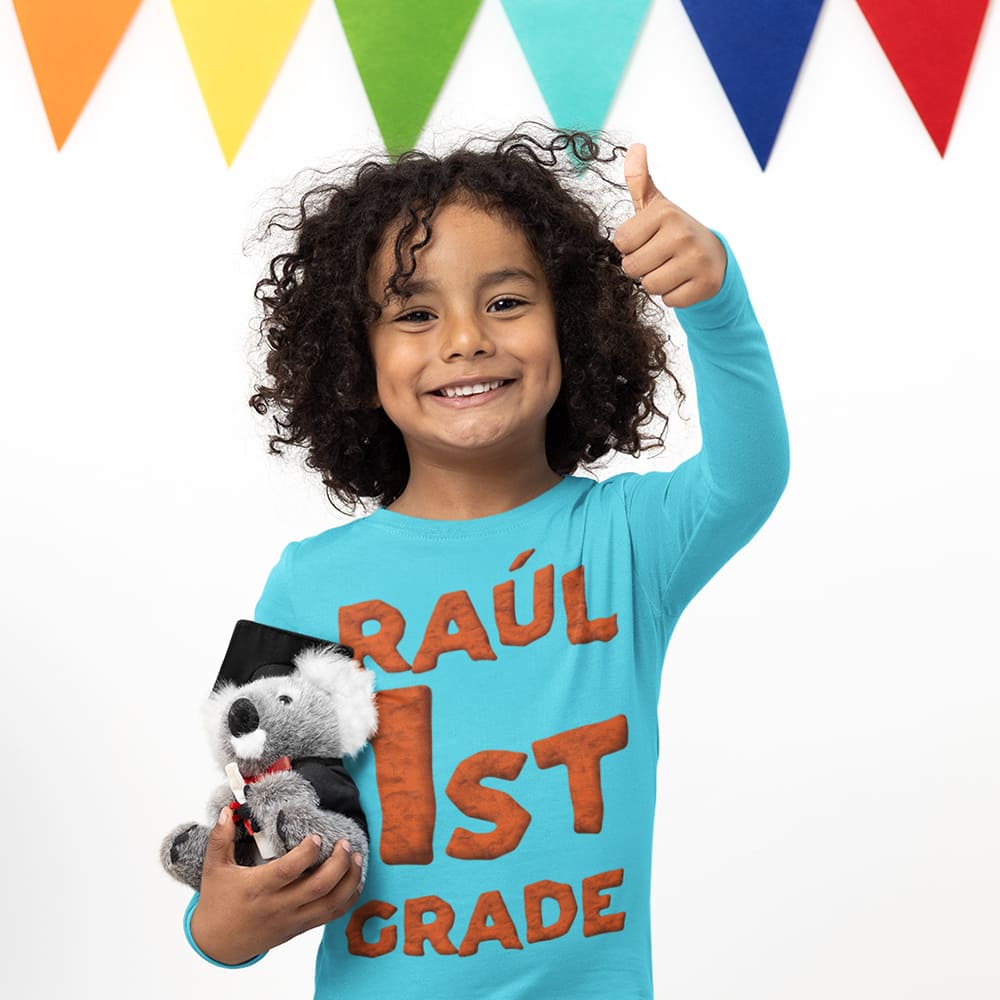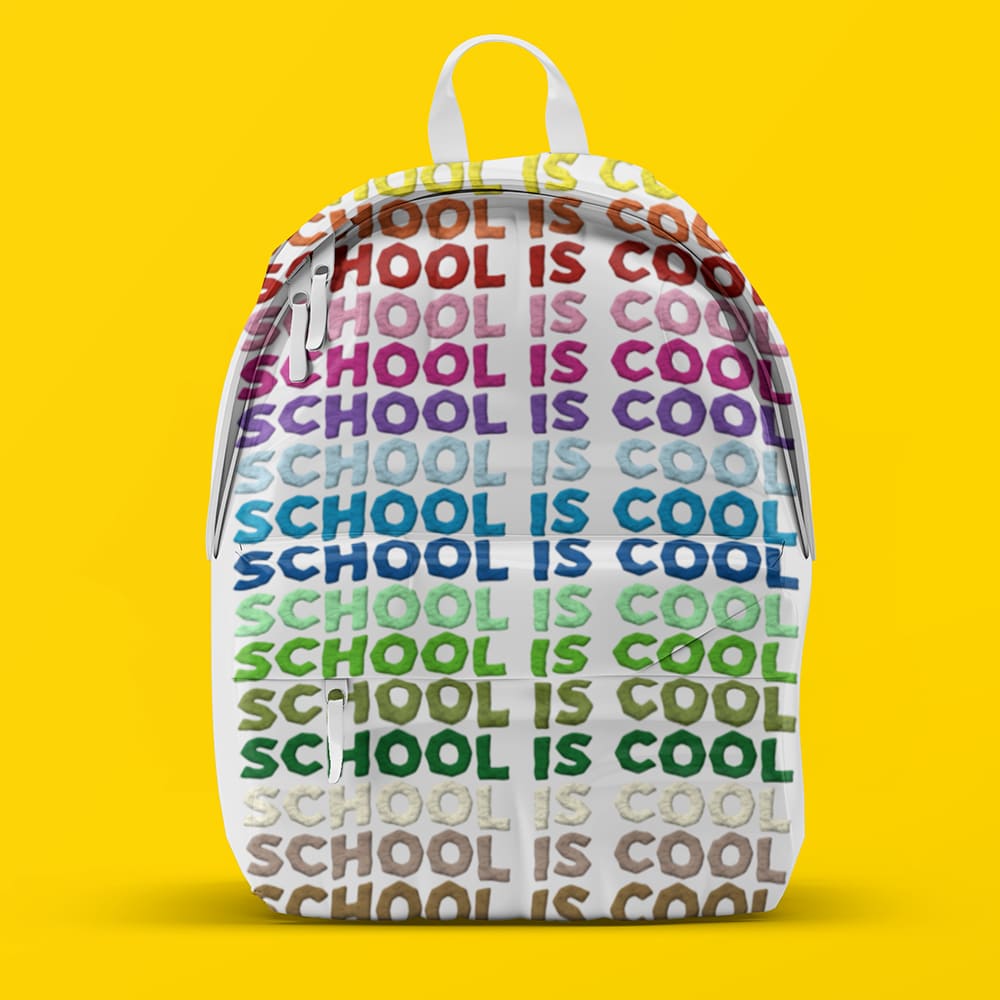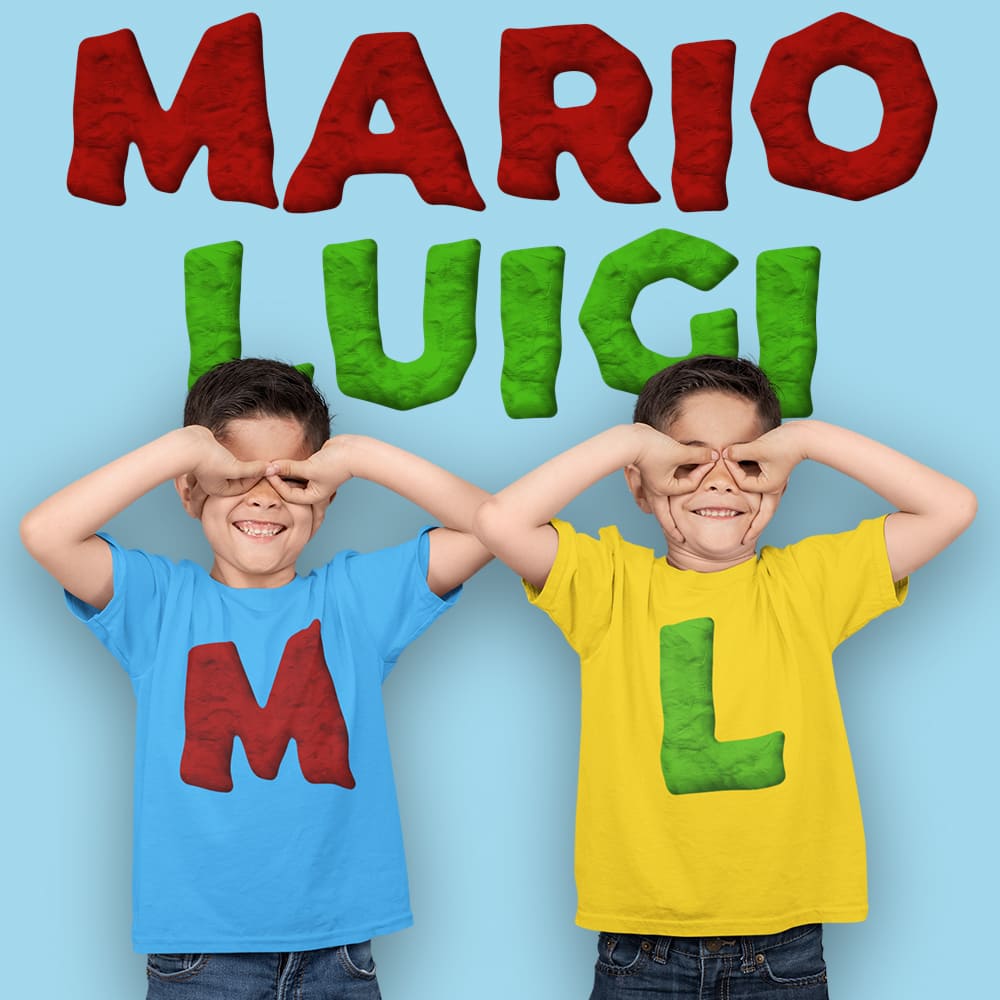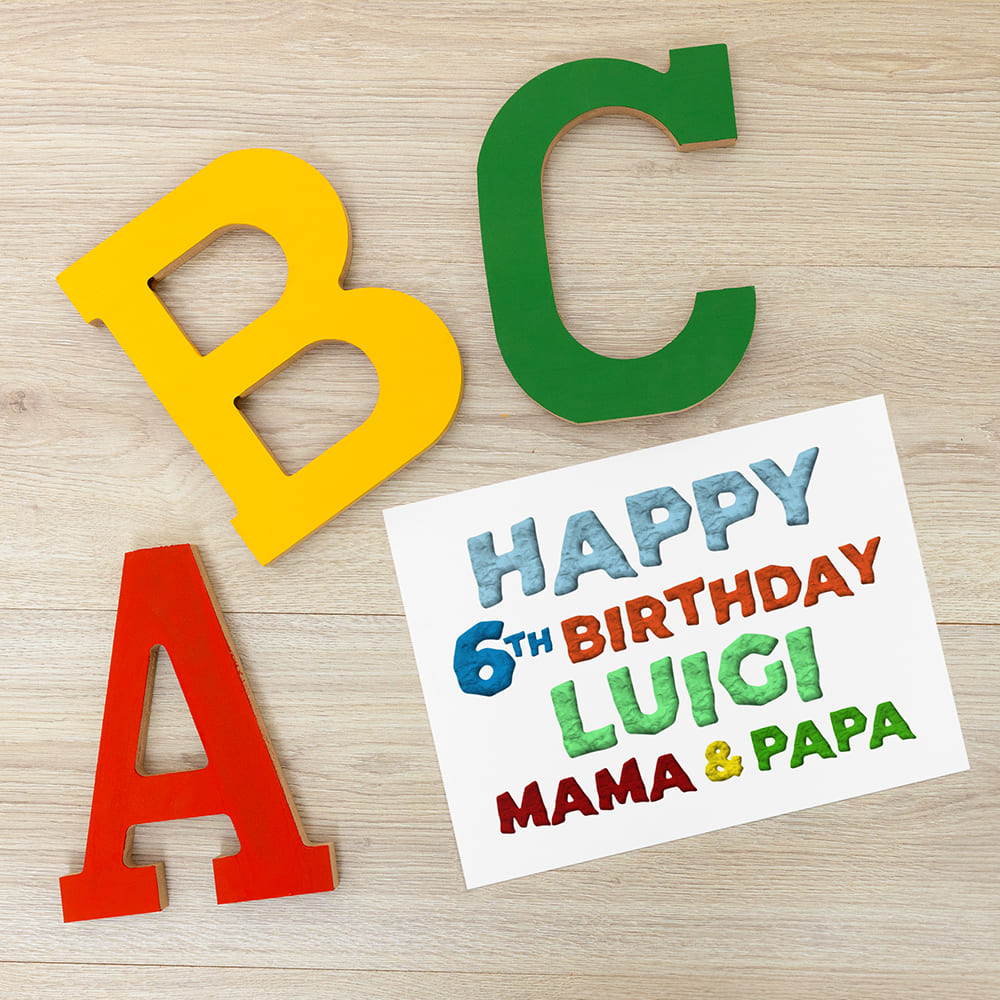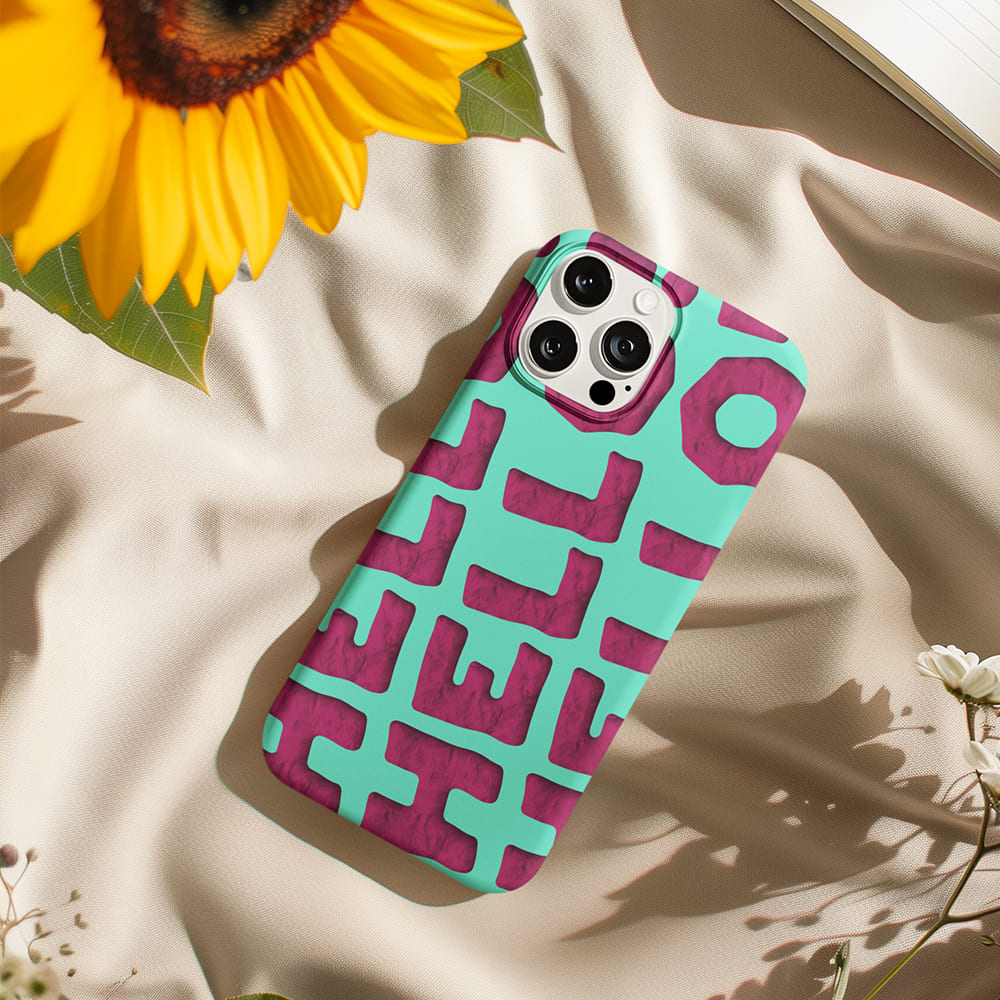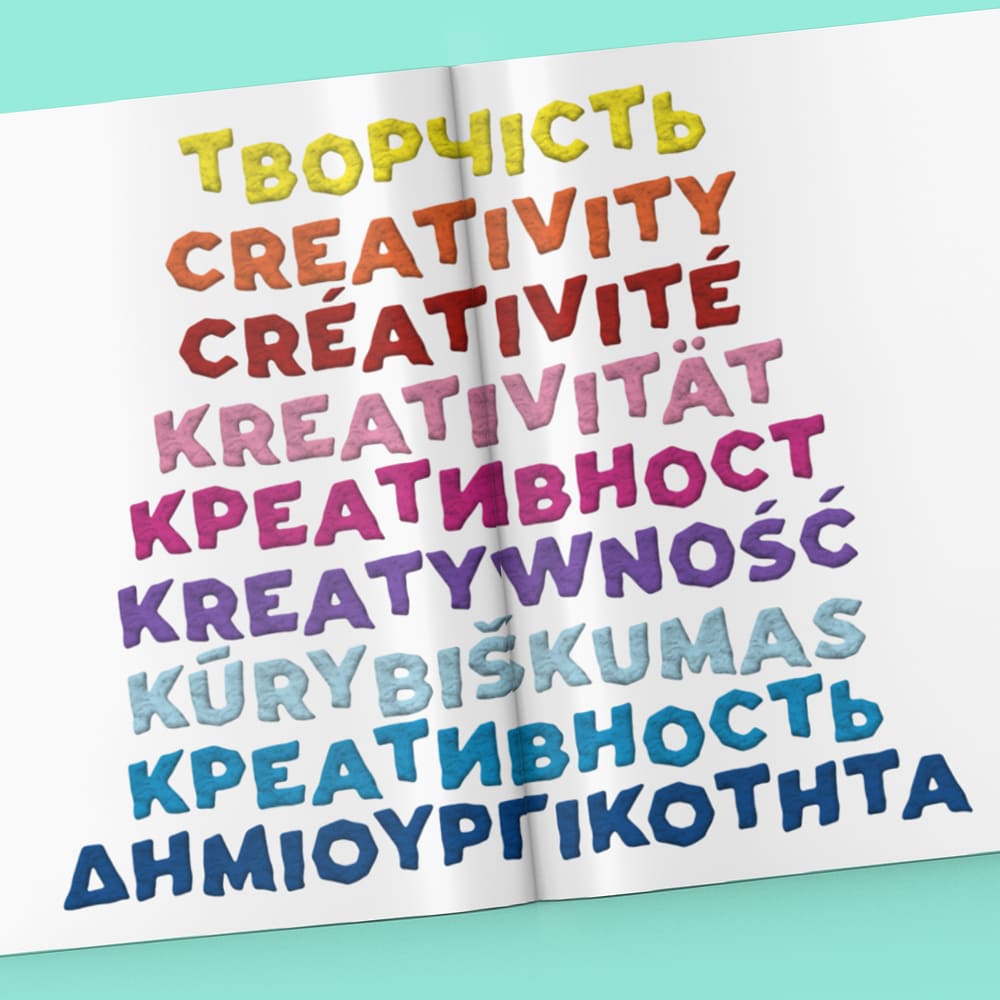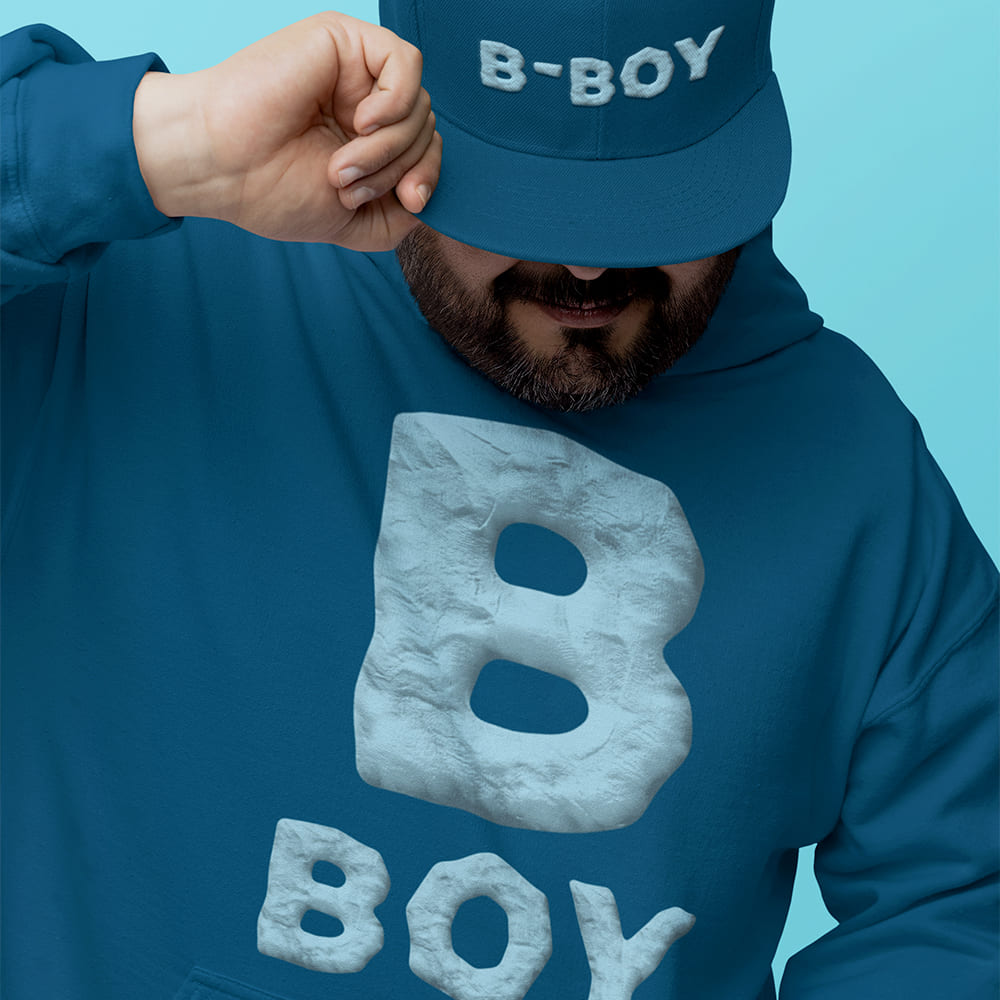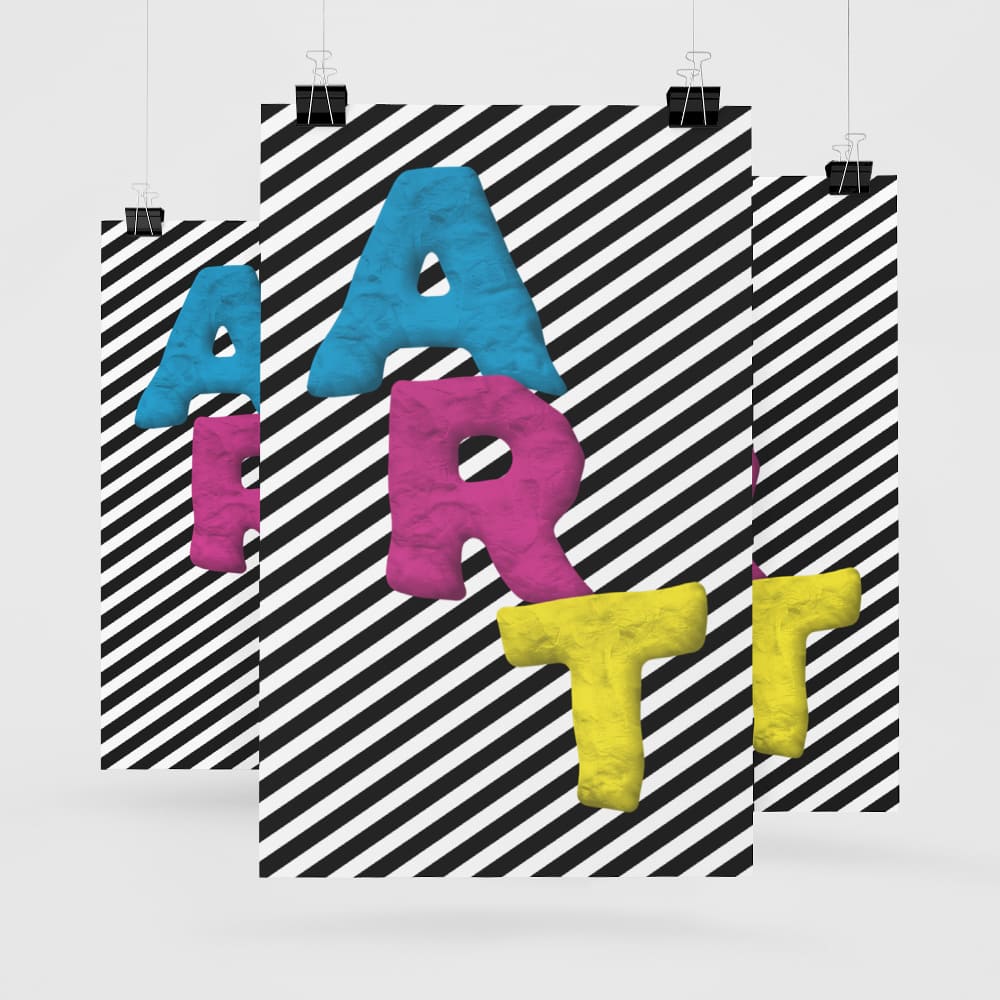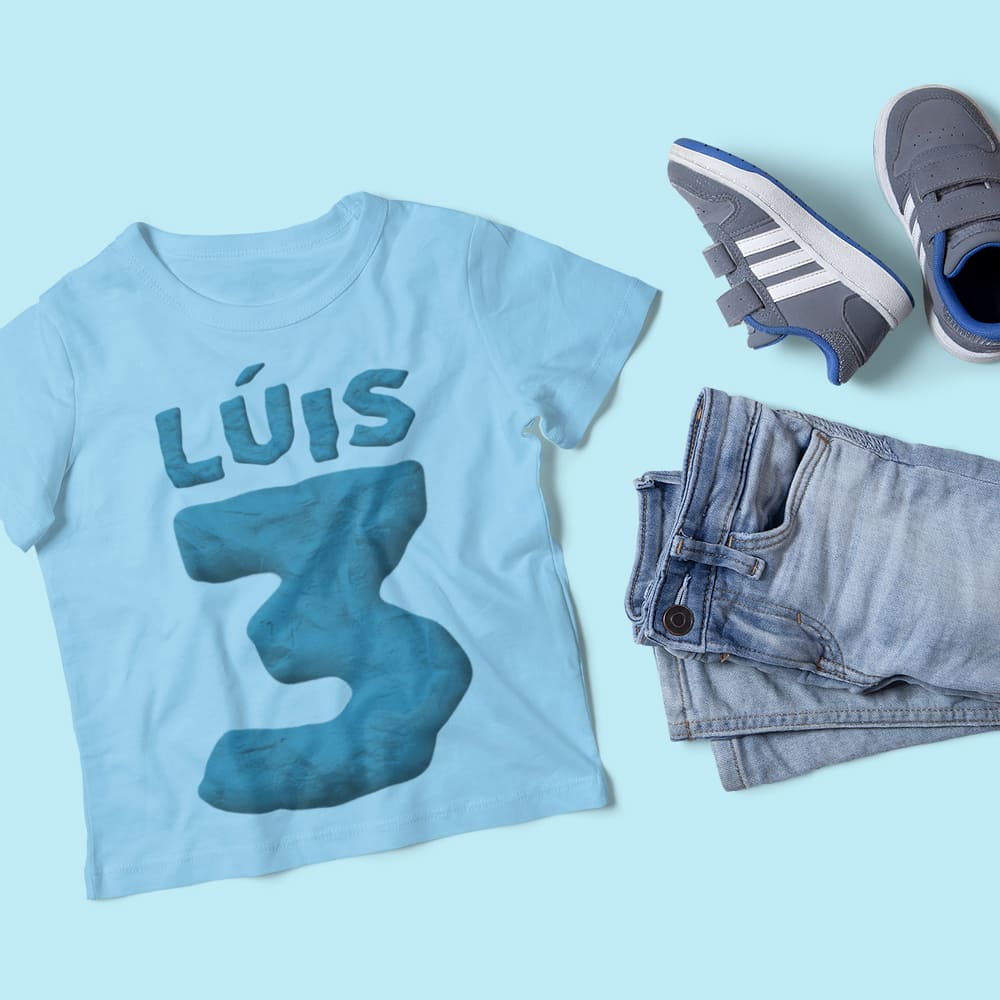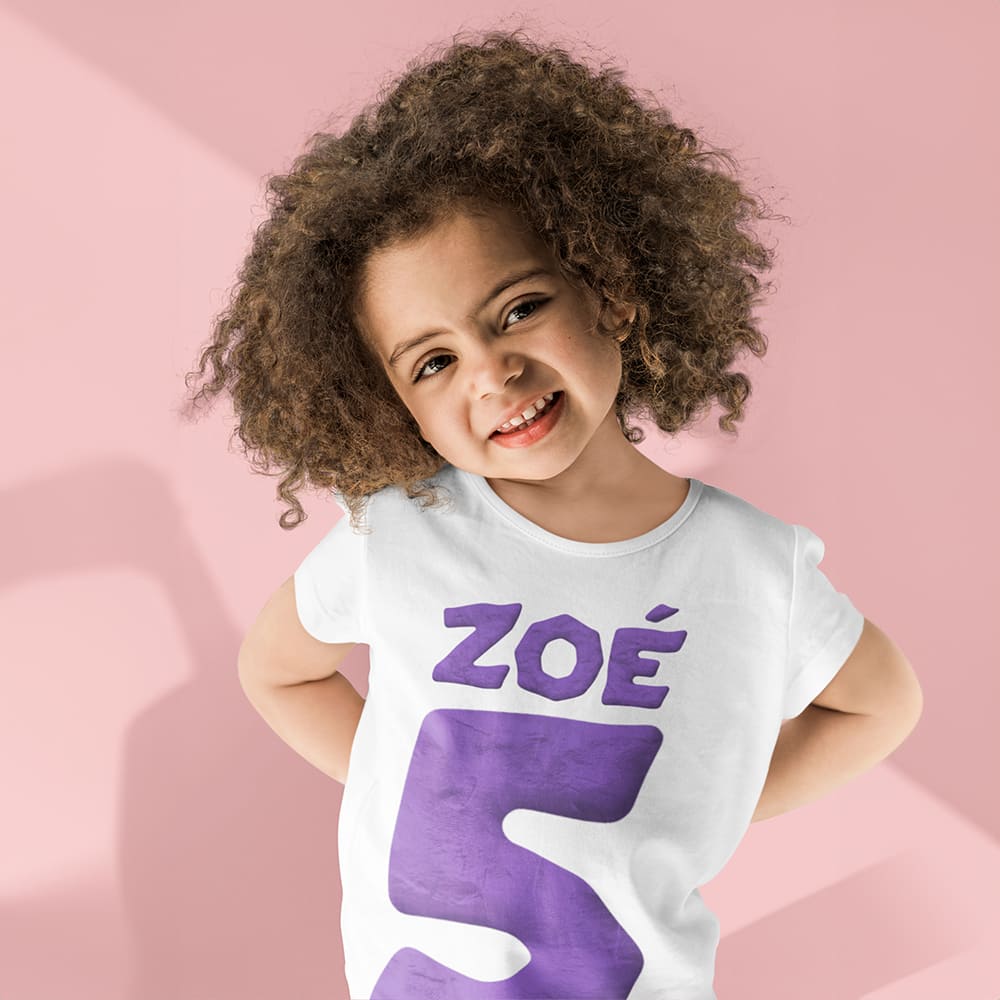
Jumping Mario Clay Font
Playful, Dynamic, Iconic! ๐๐ฎโจ
Jump into a world of nostalgia, adventure, and creative energy! The Jumping Mario Clay Font brings the unmistakable charm of classic platformer games to your designs โ featuring a playful clay texture, dynamic movement, and pure retro vibes.
Why Choose the Jumping Mario Clay Font?
๐น Pixels Meet Clay โ A perfect fusion of classic gaming style and sculpted clay aesthetics for a truly unique look.
๐น Jump-โnโ-Run Energy โ Every letter feels alive โ like a hero leaping over obstacles, collecting coins, and grabbing power-ups!
๐น Perfect for Gaming & Retro Designs โ Whether for fan projects, merchandise, social media, or logos, this font takes your designs straight into an iconic universe.
๐น Vibrant Color Options โ Available in multiple colors, from classic red to bright blue, green, or yellow โ making it a perfect fit for any gaming world!
๐ฅย EVERY FONT ROCKER FONT COMES WITH 325 GLYPHS & SUPPORTS OVER 100+ LANGUAGES WORLDWIDE, INCLUDING CYRILLIC, GREEK & MORE.
Ready to Jump? ๐
With the Jumping Mario Clay Font, you can create designs bursting with fun, action, and retro charm! Make your design playful, energetic, and unforgettable!
๐น Press Start. Jump High. Choose the Jumping Mario Clay Font!